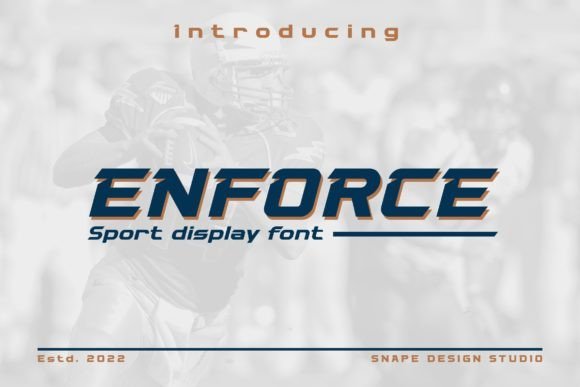
Introduction to Enforce Font
Enforce is a robust font designed to draw attention and highlight any project that requires a bold feel.
It looks powerful and is created to add a vibrant touch to your sport-inspired designs Suitable for sports design, team, jersey, league, movie, documenter, film, logo, poster, game, book cover, headlines, title, and many more projects.
Key Features of Enforce Font